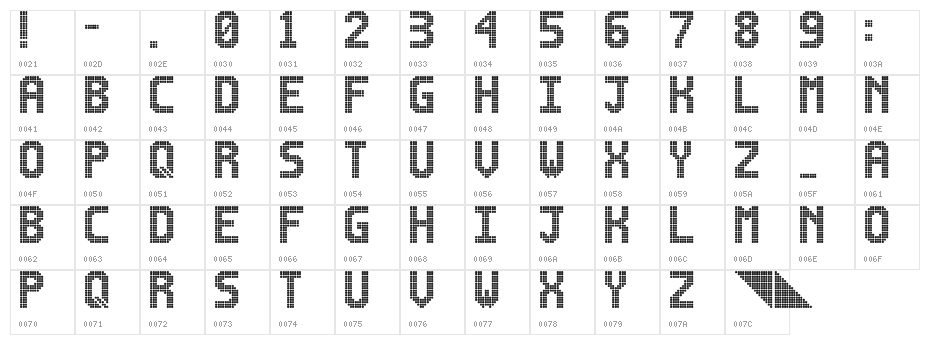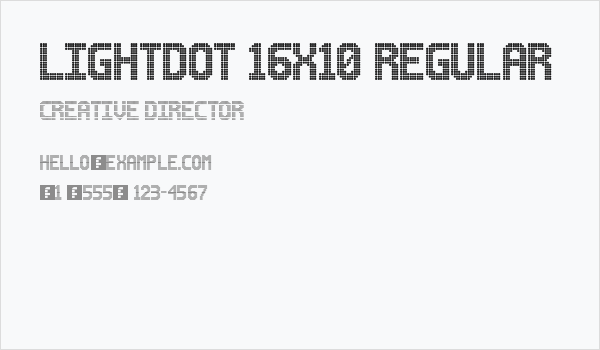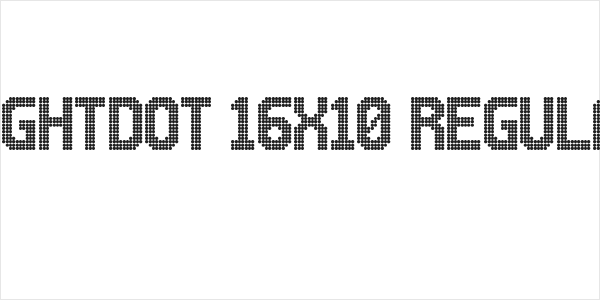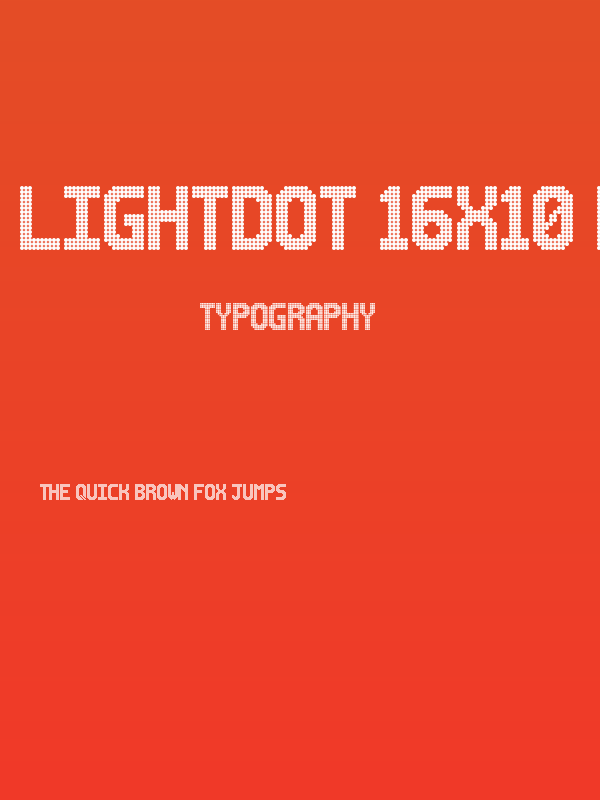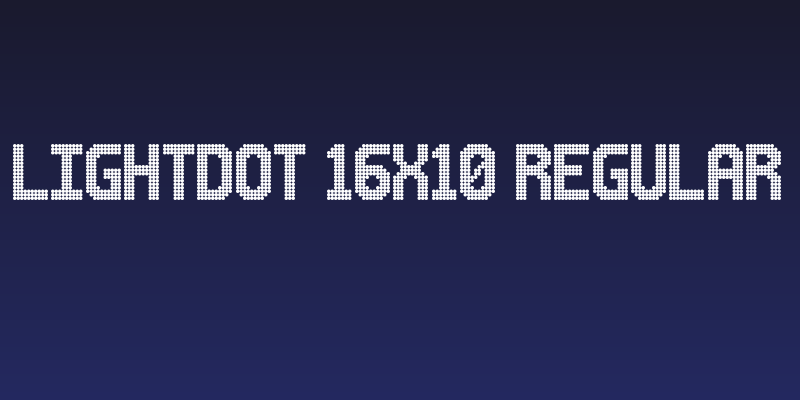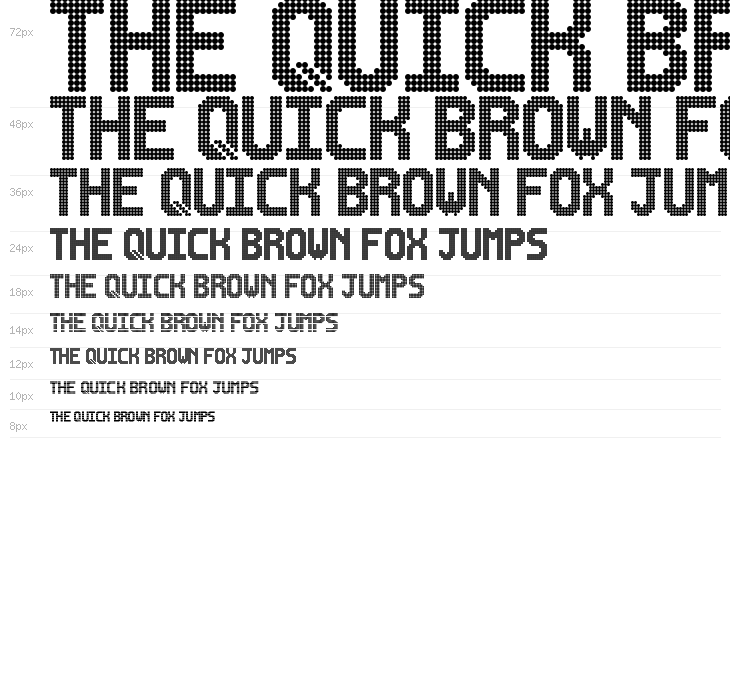
Lightdot 16x10 Regular Font
Lightdot 16x10 Regular Description
This font features a unique dot matrix design, reminiscent of retro digital displays. Each character is constructed from a grid of small, evenly spaced dots, creating a pixelated effect that is both modern and nostalgic. The uppercase and lowercase letters maintain consistent proportions, ensuring readability while preserving the distinct style. Numbers and special characters follow the same dot pattern, providing a cohesive look across all glyphs. The font's geometric precision and uniformity make it ideal for projects that require a digital or tech-inspired aesthetic.
| Use Case | Headlines, Logos, Digital displays |
| Proposed Projects | Ideal for digital displays, tech-themed designs, retro video games, and electronic device interfaces. |